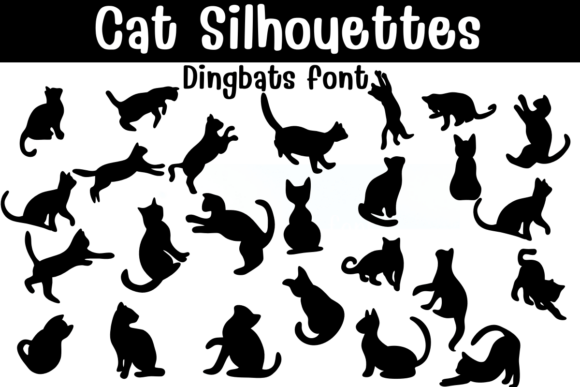
Introducing Cat Silhouettes Font: A Playful Dingbat Font for Feline Fanatics
Are you a cat lover looking for a unique and creative way to express your feline fanaticism? Look no further than the Cat Silhouettes Font, a charming dingbat font that packs a punch of playful cat poses in clean silhouette style. This delightful font is perfect for pet branding, t-shirt designs, greeting cards, stickers, and more, making it an ideal choice for crafty creatives and cat enthusiasts alike.
What is Cat Silhouettes Font?
Cat Silhouettes Font is a dingbat font that features a collection of adorable cat silhouettes, each capturing a different mood or pose. From curious kitties to stretching felines, this font is designed to bring a touch of whimsy and fun to your designs. With its clean and simple silhouette style, Cat Silhouettes Font is versatile and easy to use, making it perfect for a wide range of creative projects.
Key Features of Cat Silhouettes Font
- Playful cat poses: Each glyph in Cat Silhouettes Font features a unique and playful cat pose, from sitting and standing to jumping and stretching.
- Clean silhouette style: The font’s clean silhouette style makes it easy to use and versatile, allowing you to incorporate it into a wide range of designs.
- Perfect for pet branding: Cat Silhouettes Font is ideal for pet-related businesses, such as pet stores, veterinary clinics, and animal shelters.
- Suitable for crafty creatives: This font is perfect for crafty creatives who love to make their own designs, such as t-shirt designers, greeting card makers, and sticker enthusiasts.
Uses for Cat Silhouettes Font
Cat Silhouettes Font is a versatile font that can be used in a wide range of creative projects, including:
- Pet branding: Use Cat Silhouettes Font to create adorable and eye-catching logos, business cards, and marketing materials for your pet-related business.
- T-shirt designs: Create fun and playful t-shirt designs featuring Cat Silhouettes Font, perfect for cat lovers and enthusiasts.
- Greeting cards: Use Cat Silhouettes Font to create cute and personalized greeting cards for cat lovers, featuring playful cat silhouettes.
- Stickers: Create adorable stickers featuring Cat Silhouettes Font, perfect for laptops, water bottles, and more.
Why Choose Cat Silhouettes Font?
So why choose Cat Silhouettes Font over other fonts? Here are just a few reasons:
- Unique and playful: Cat Silhouettes Font is a unique and playful font that will add a touch of whimsy to your designs.
- Easily readable: The font’s clean silhouette style makes it easily readable, even at small sizes.
- Versatile: Cat Silhouettes Font can be used in a wide range of creative projects, from pet branding to t-shirt designs.
- Perfect for cat lovers: This font is perfect for cat lovers and enthusiasts, featuring adorable cat silhouettes that are sure to delight.
Tips for Using Cat Silhouettes Font
Here are a few tips for using Cat Silhouettes Font in your designs:
- Experiment with different colors: Try out different colors and color combinations to add depth and interest to your designs.
- Mix and match glyphs: Mix and match different glyphs to create unique and playful designs.
- Use it with other fonts: Use Cat Silhouettes Font with other fonts to create visually interesting and dynamic designs.
- Have fun: Most importantly, have fun and be creative with Cat Silhouettes Font!
In conclusion, Cat Silhouettes Font is a charming dingbat font that is perfect for cat lovers and crafty creatives. With its playful cat poses, clean silhouette style, and versatility, this font is ideal for a wide range of creative projects, from pet branding to t-shirt designs. So why not give Cat Silhouettes Font a try and see how it can add a touch of whimsy and fun to your designs?